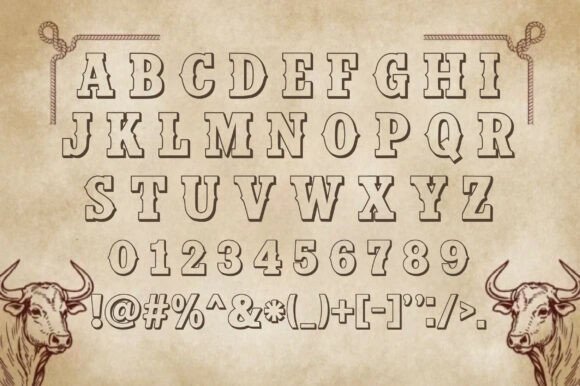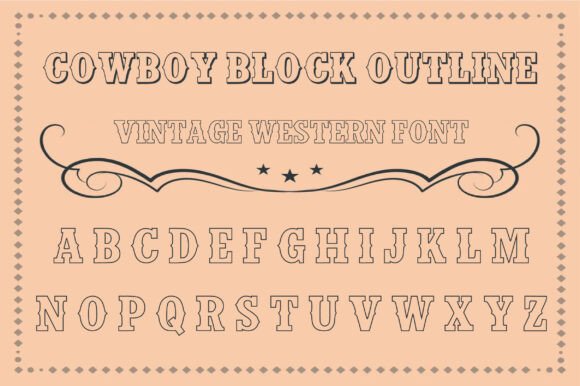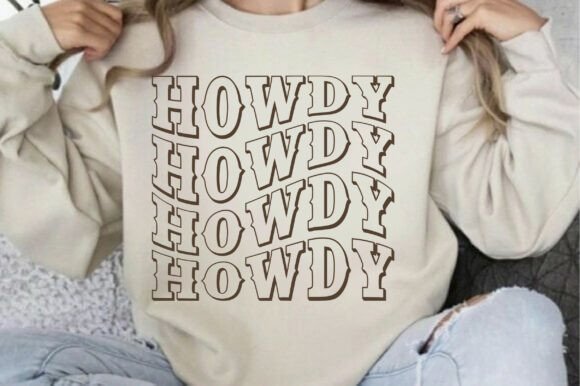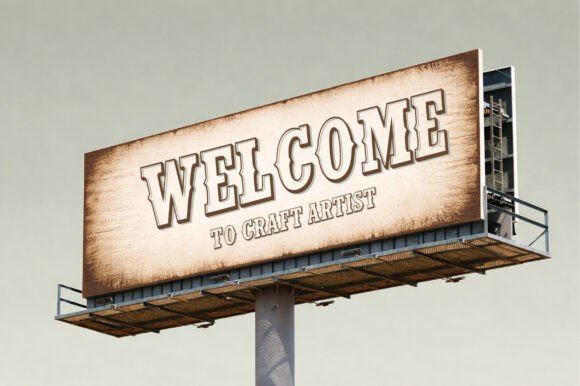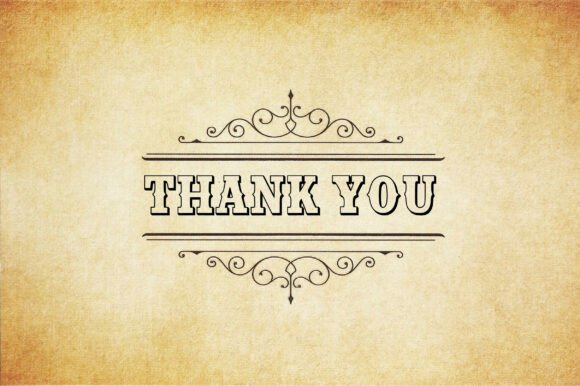
Get Ready to Saddle Up with the Cowboy Block Font
Have you ever been brainstorming a design project and suddenly, a wild idea strikes – you need a font that screams rugged individualism and unbridled adventure? For designers looking to add a touch of the Wild West to their work, the Cowboy Block Font is here to save the day.
This bold, all-caps typeface is inspired by vintage saloon signage and features strong block serifs with a clean outline and classic shadow effect. With its unique “thorn” serifs and hollowed-out shadow effect, the Cowboy Block Font is built for headlines that need to command attention and make a lasting impression.
Whether you’re working on a rodeo poster, outdoor equipment branding, or themed birthday party invites, the Cowboy Block Font is an excellent choice for adding a rugged and authoritative touch to your designs. Its versatility and classic aesthetic make it a valuable asset for designers looking to add some Western grit to their work.
Cowboy Block Font Key Features
- Font Family: A unique, hand-drawn serif font designed to evoke a rustic, western feel.
- Unique Characteristics: Distinctive letterforms, ornate flourishes, and a mix of serif and sans-serif elements create a visually interesting and eye-catching font.
Cowboy Block Font Review
I’ve had the chance to play around with the Cowboy Block Font, and overall, I think it’s a solid choice for those looking for a rustic, country-inspired font. ✨ The font’s block-like structure and bold lines give it a unique and eye-catching feel that’s perfect for headings, titles, and other display text.
One thing that really stands out about Cowboy Block Font is its versatility. ✨ It can be used for a wide range of designs, from western-themed projects to modern, minimalist layouts. The font also comes in a variety of weights and styles, which makes it easy to customize and adapt to different design needs.
What Doesn’t Work So Well:
- ⚠️ Limited flexibility in fine details, as the block-like structure can make it difficult to read at small font sizes.
- ⚠️ Not ideal for body text or large blocks of text, as the font can be overwhelming and tiring to read.
Overall, I think the Cowboy Block Font is a great choice for designers who want to add a touch of rugged, country charm to their projects. While it may have some limitations, its unique style and versatility make it a valuable addition to any design toolkit.
Tips for Getting the Most Out of Cowboy Block Font
Use Cowboy Block Font for:
- Western-themed designs and logos.
- Outdoor and adventure-related projects.
- Creating a rustic or vintage feel.
Cowboy Block Font is ideal for:
- Business cards and brochures.
- Signage and banners.
- Marketing materials and advertisements.
Alternatives to Cowboy Block Font
Great Vibes is a modern, handwritten font perfect for adding a touch of elegance and sophistication to your designs. It’s ideal for use in invitations, greeting cards, and other creative projects where a unique, handwritten feel is desired.
Compared to Cowboy Block Font, Great Vibes is more refined and less blocky, making it a great choice for projects where a more polished look is needed. It’s also more versatile and can be used in a variety of contexts, from formal to casual.
Playfair Display is a luxurious, high-end font ideal for use in projects where a touch of sophistication and elegance is desired. It’s perfect for use in titles, headings, and other areas where a bold, eye-catching font is needed.
Compared to Cowboy Block Font, Playfair Display is more ornate and decorative, making it a great choice for projects where a bold, statement-making font is needed. However, it’s less versatile and may not be suitable for use in large blocks of text.